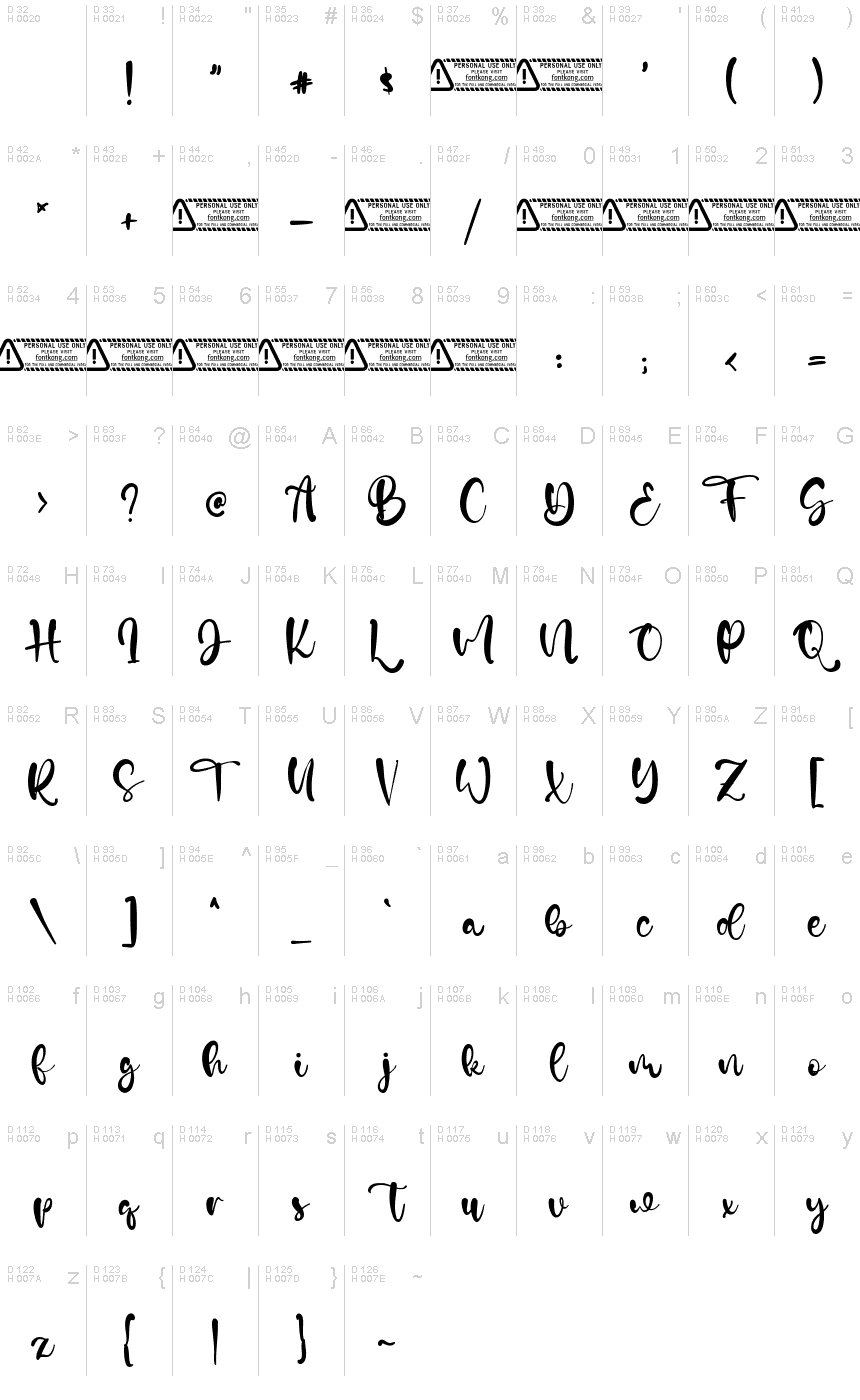
Ocean Castle
Meet Ocean Castle, the modern handwritten semi-bold font designed by Kong Font that will add personality and charm to your designs. With its unique style, this font is perfect for a variety of projects including branding, logos, packaging design, social media graphics and more. Its semi-bold weight adds just the right amount of emphasis without being too overpowering. The flowing handwritten style gives a personal touch to any project while still maintaining a professional look. Let Ocean Castle be your go-to font for all your creative needs!